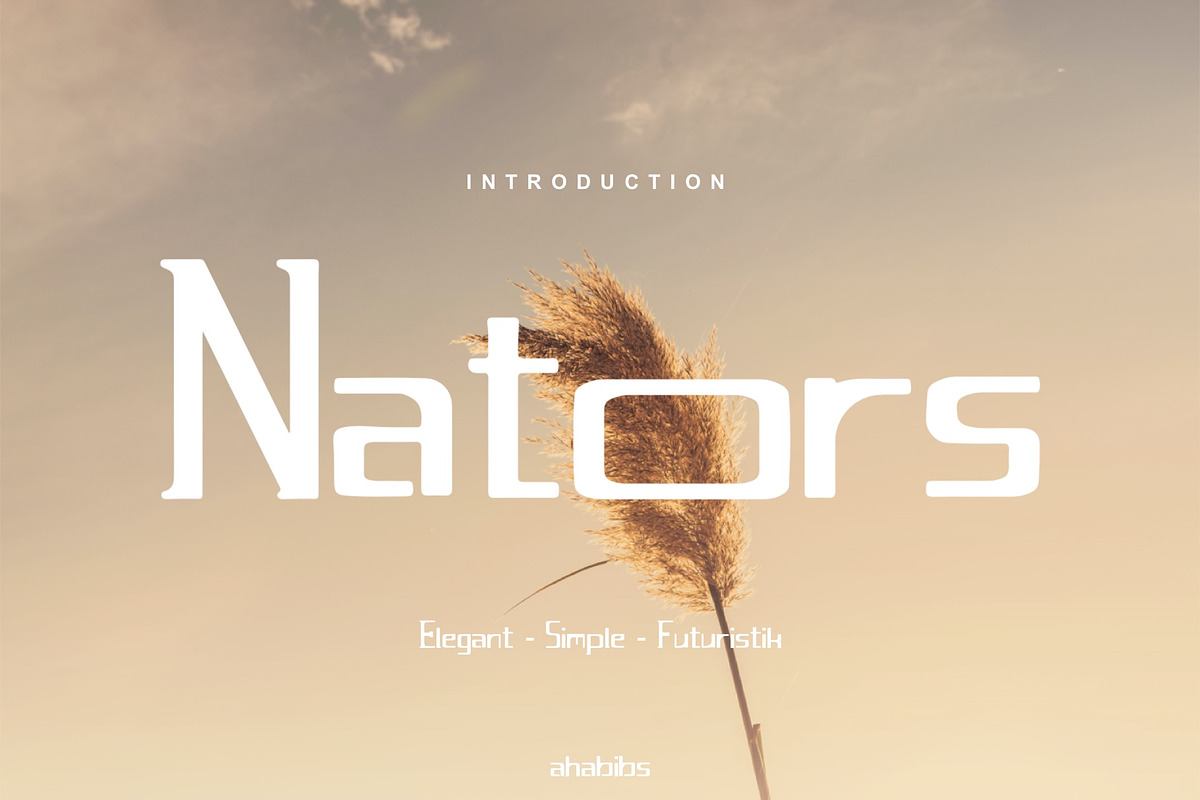
Bring bold style and modern flair to your designs with Nators Font Free Download. This contemporary sans-serif typeface features clean lines, geometric forms, and a striking design, making it perfect for branding, headlines, logos, packaging, and modern digital content.
Nators offers a sleek and versatile look, ensuring readability and impact in both print and digital formats. It includes uppercase and lowercase letters, numerals, punctuation, and multilingual support—giving you the flexibility to test your creative concepts.